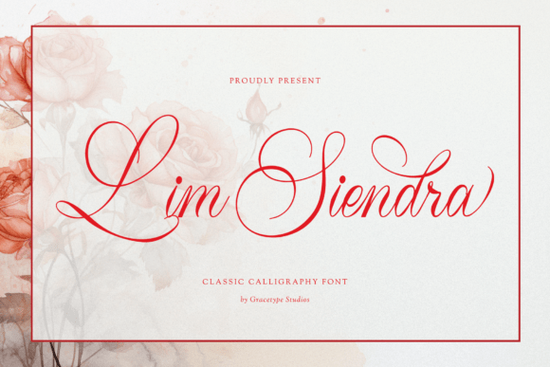
If you're looking for a font that adds a touch of timeless elegance to your designs, the Lim Siendra Font is an excellent choice. This signature script is perfect for anyone who wants to infuse their projects with a romantic and sophisticated feel. Whether you're designing wedding invitations, branding materials, or social media graphics, Lim Siendra can help you achieve that classic, hand-written look.
Why Choose Lim Siendra for Your Design Projects?
Lim Siendra stands out with its high-contrast, fluidly connected cursive strokes. The large theatrical capital loops, sweeping baseline extensions, and crisp, delicate upstrokes make it a standout choice for any design that needs a touch of old-world charm. It's particularly well-suited for bespoke wedding invitation suites, independent fine wine branding, luxury botanical cosmetic packaging, artisanal boutique confectionery labels, and high-impact social media headers.
How Does Lim Siendra Compare to Other Script Fonts?
While there are many beautiful script fonts available, Lim Siendra offers a unique blend of elegance and versatility. For instance, if you're considering other options like Strong Girl Font, Masterline Calligraphy Font, Preppy Writing Font, or Amibas Font, each has its own distinct style. However, Lim Siendra's combination of dramatic flair and refined detail sets it apart, making it a premier choice for projects that require a touch of sophistication.
When to Use Lim Siendra in Your Designs
Lim Siendra is ideal for a variety of design scenarios where a sense of elegance and romance is needed. Here are some specific use cases:
- Wedding Invitations: The flowing, elegant lines of Lim Siendra make it perfect for creating stunning, bespoke wedding invitations that capture the essence of a special day.
- Fine Wine Branding: Independent wineries can use Lim Siendra to add a touch of class and tradition to their labels and marketing materials.
- Luxury Packaging: For high-end cosmetic and confectionery brands, Lim Siendra can enhance the perceived value and luxury of the product through its refined and elegant typography.
- Social Media Graphics: High-impact social media headers and posts can benefit from the distinctive and eye-catching style of Lim Siendra, helping to grab attention and convey a message of quality and sophistication.
Tips for Using Lim Siendra Effectively
To get the most out of Lim Siendra, consider these tips:
- Balance with Simplicity: Since Lim Siendra is quite ornate, pair it with simpler, more legible fonts for a balanced and readable design.
- Use for Key Elements: Reserve Lim Siendra for key elements like headings, titles, or short, impactful text to maintain clarity and impact.
- Experiment with Colors: Try different color schemes to see what complements the elegance of Lim Siendra. Soft, pastel colors often work well, but don't be afraid to experiment with bolder choices for a more modern twist.
Final Thoughts on Lim Siendra
Lim Siendra is a versatile and elegant font that can add a touch of timeless beauty to your design projects. Its unique features, such as the large theatrical capital loops and delicate upstrokes, make it a standout choice for anyone looking to create designs with a classic, hand-written feel. Whether you're working on wedding invitations, luxury packaging, or social media graphics, Lim Siendra is a font that can help you achieve the perfect balance of elegance and impact.
Next Steps for Designers and Creatives
Here’s a quick checklist to help you integrate Lim Siendra into your next project:
- Brainstorm Ideas: Think about the specific elements in your design where Lim Siendra can add the most value.
- Create Mockups: Experiment with different layouts and color schemes to see how Lim Siendra fits into your overall design vision.
- Get Feedback: Share your designs with colleagues or clients to get feedback and refine your work.
By following these steps, you can effectively incorporate Lim Siendra into your designs and create stunning, elegant projects that stand out.